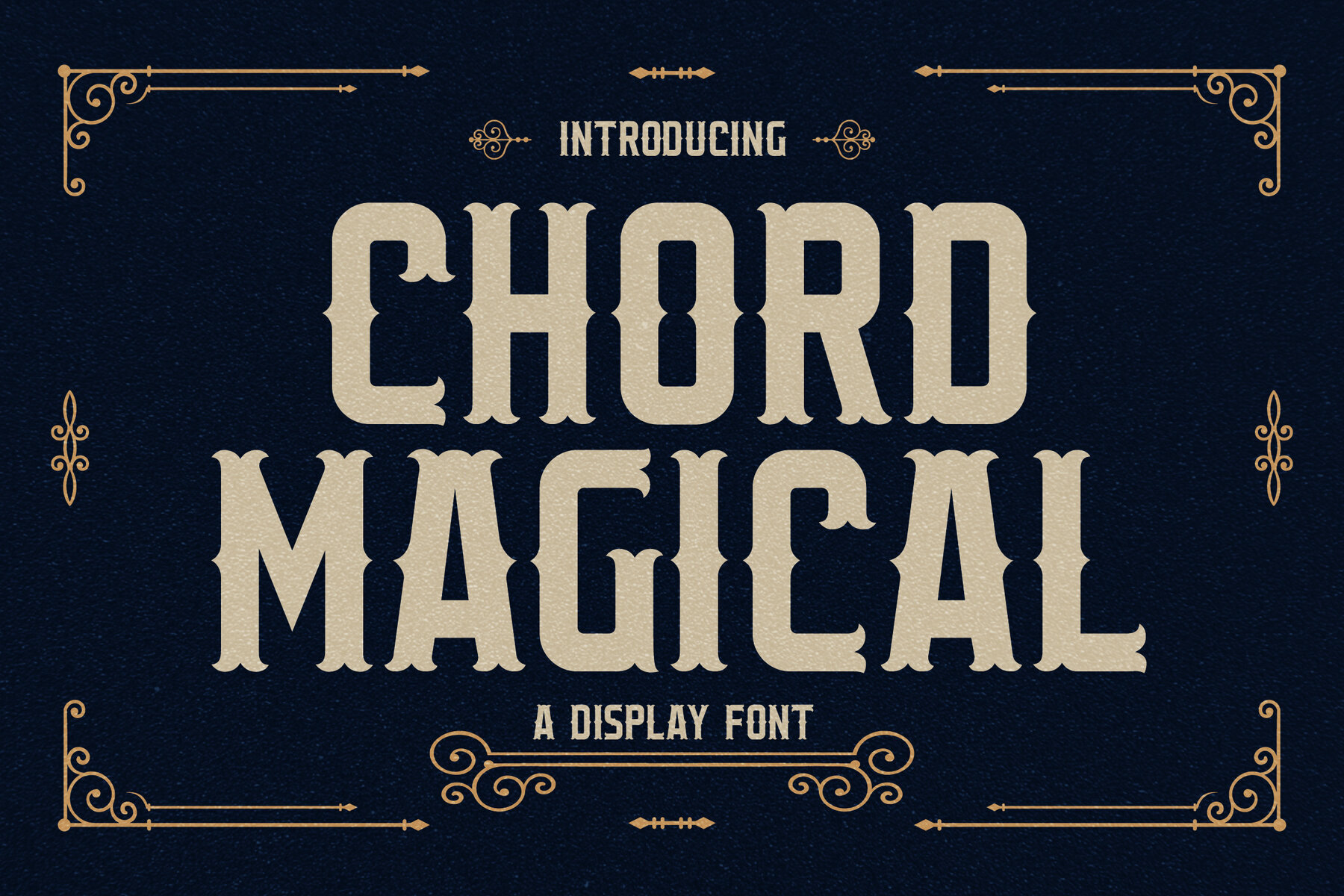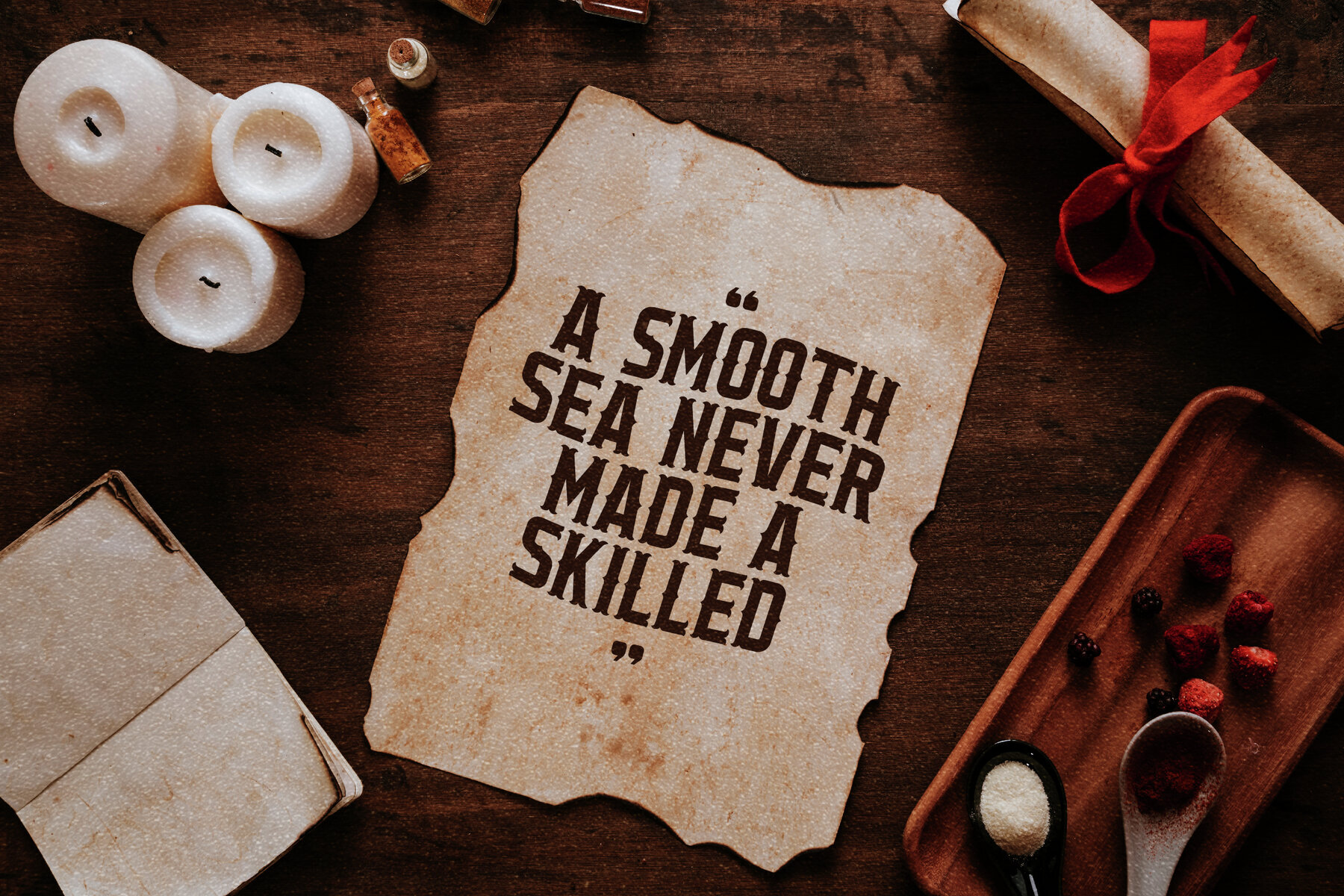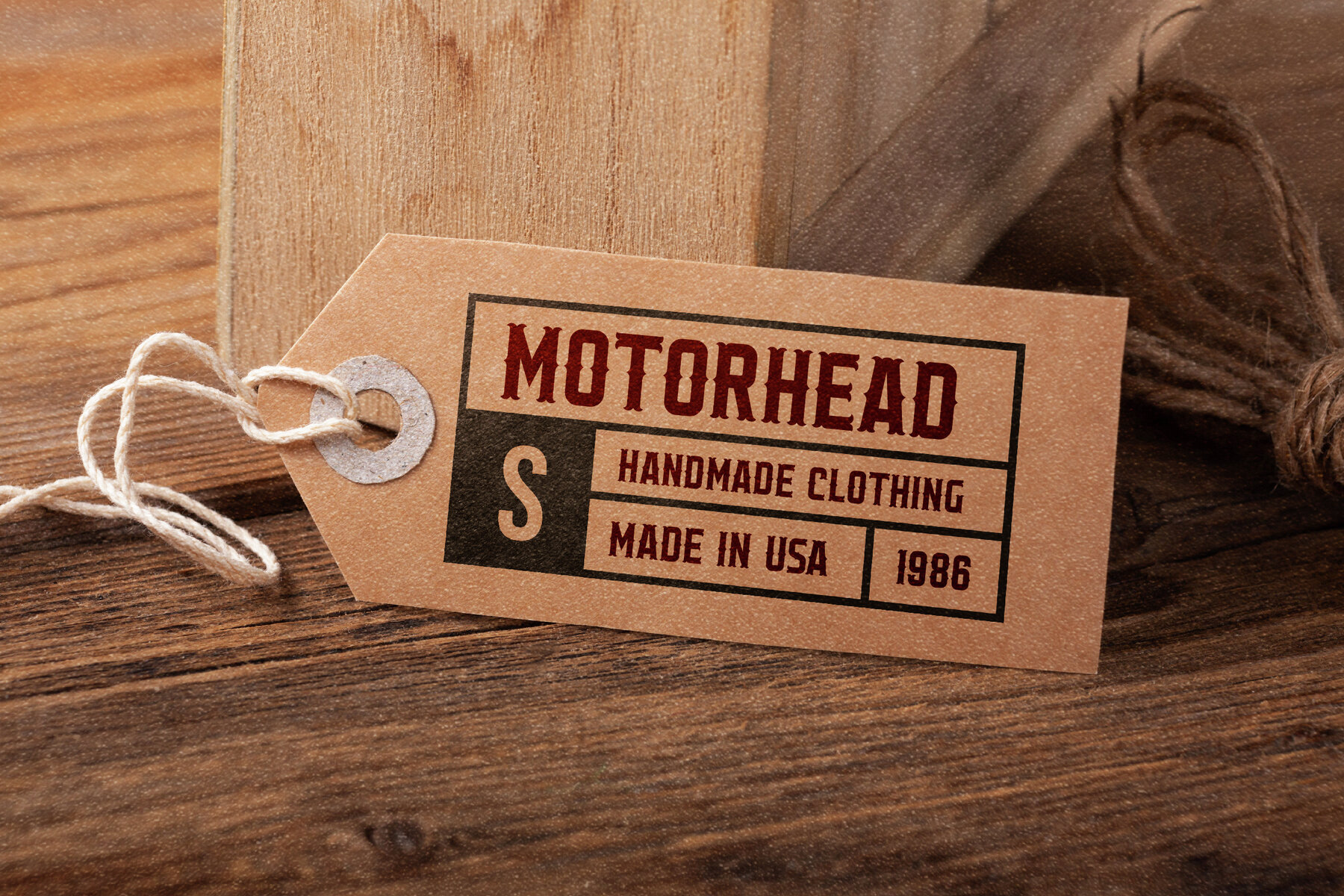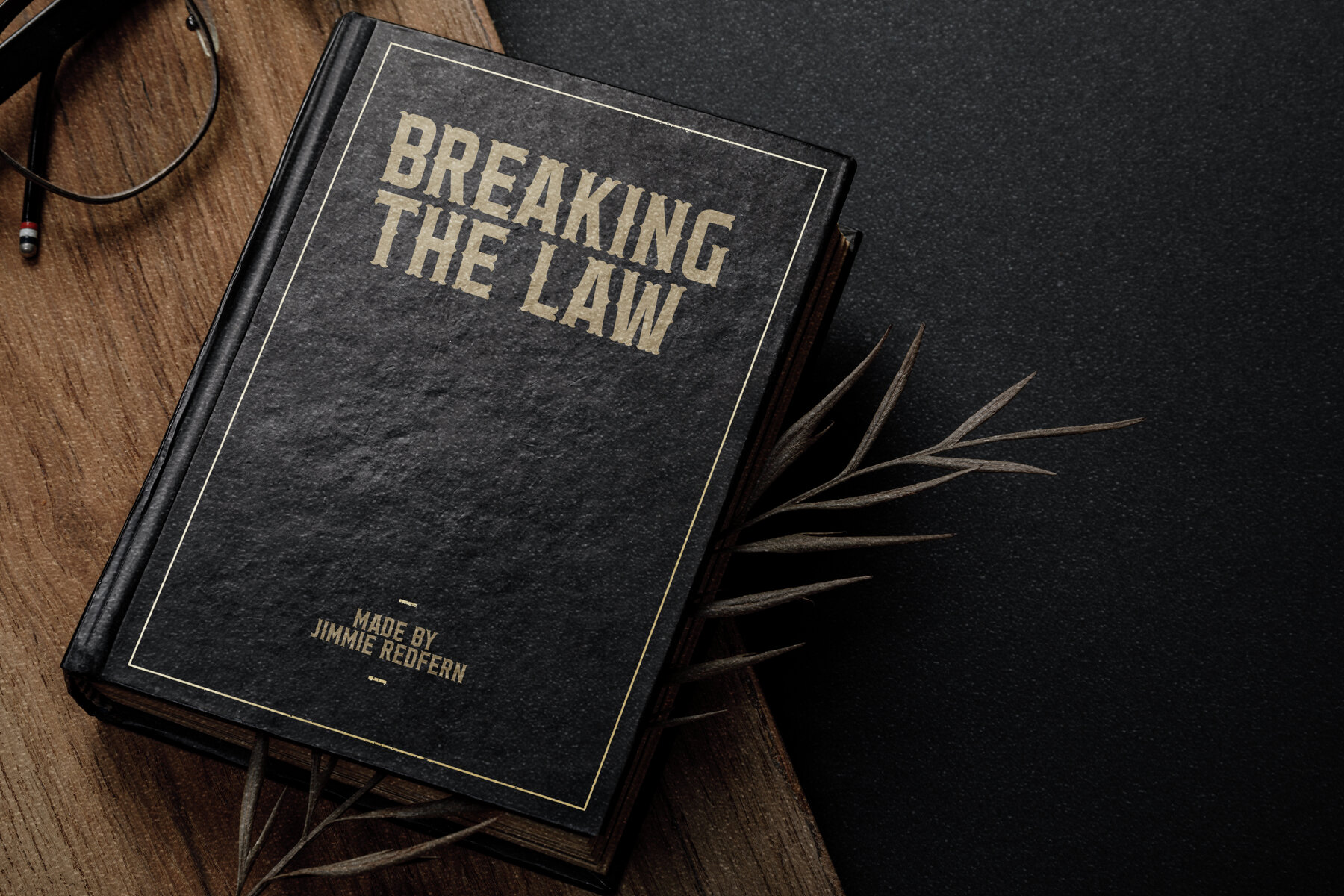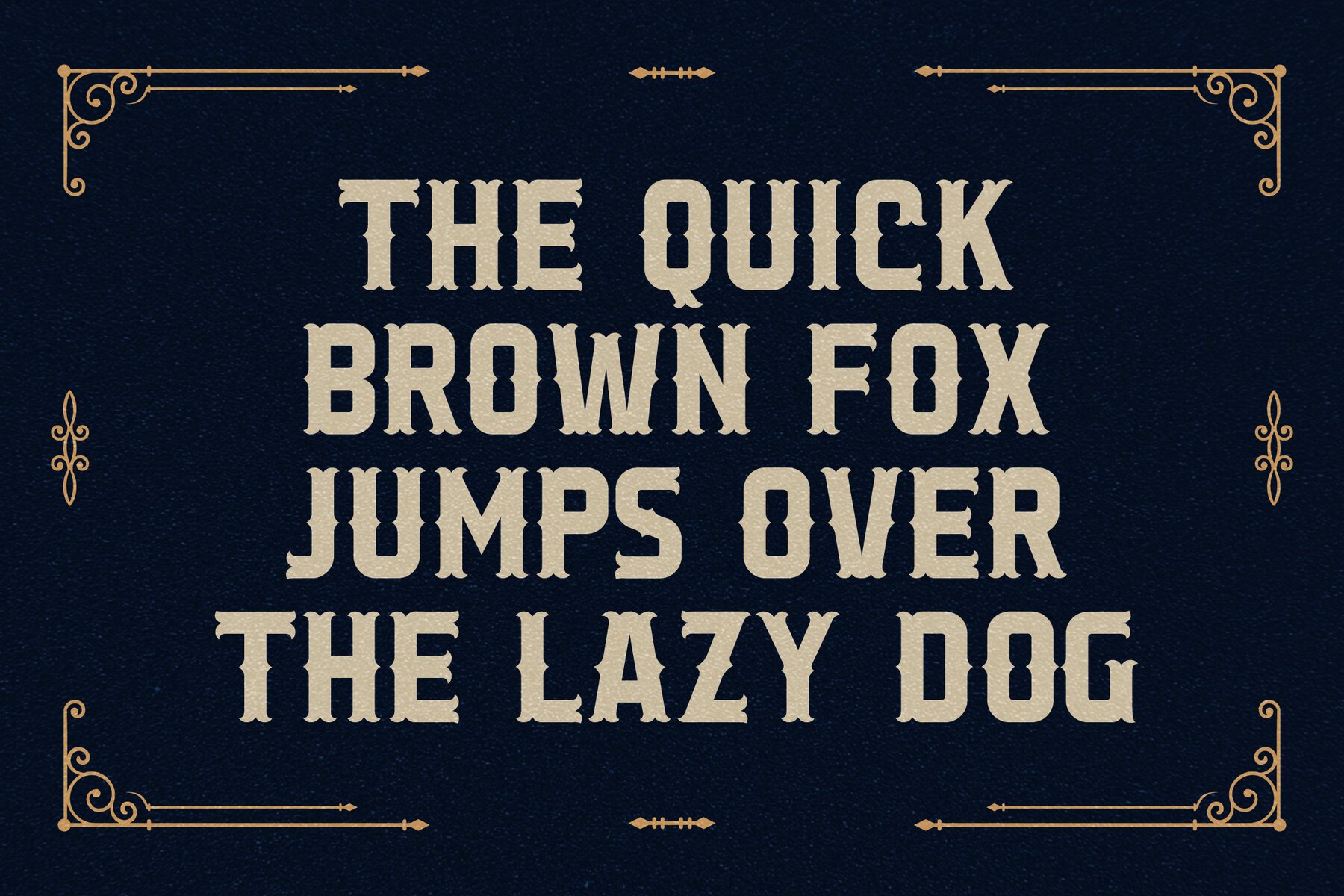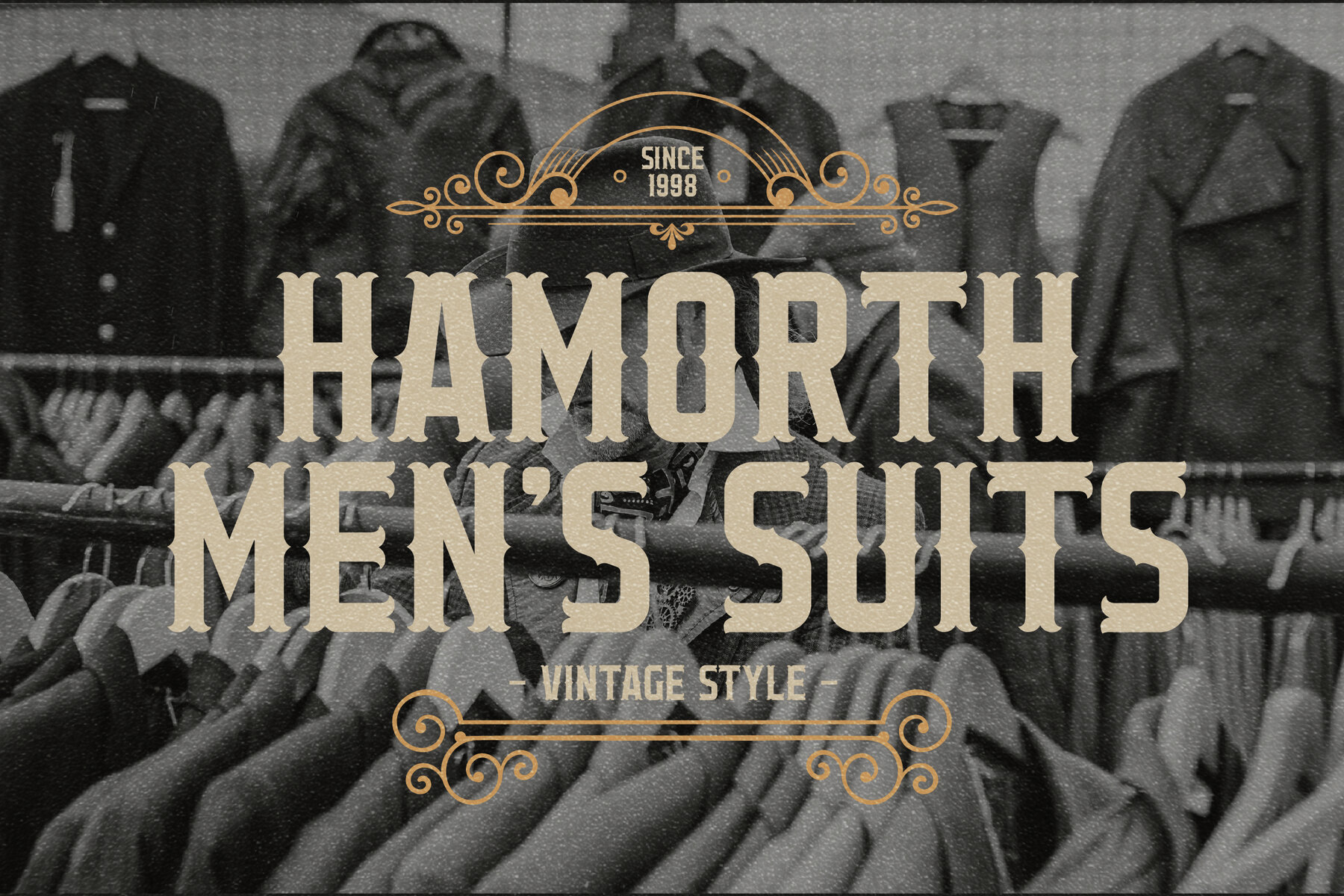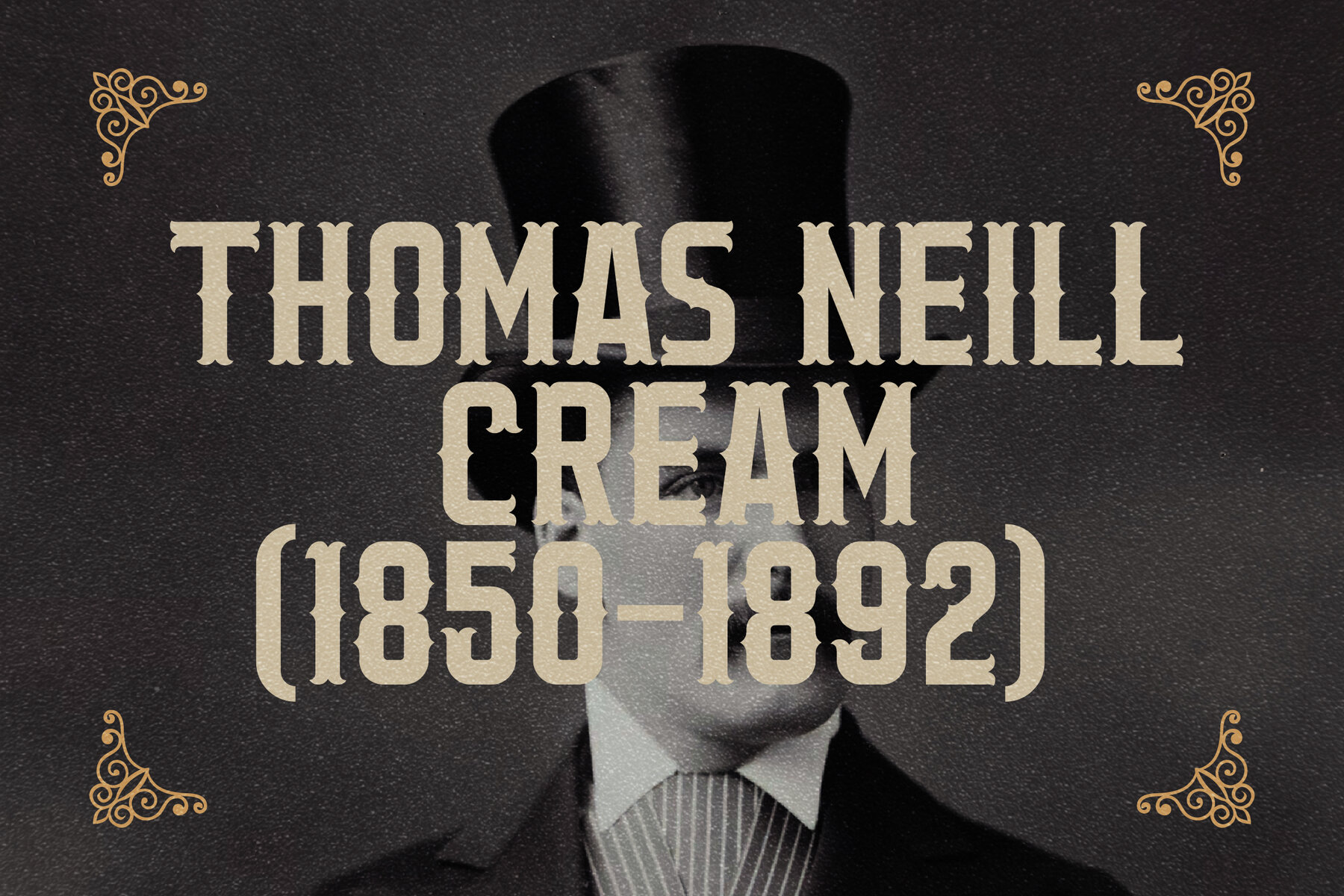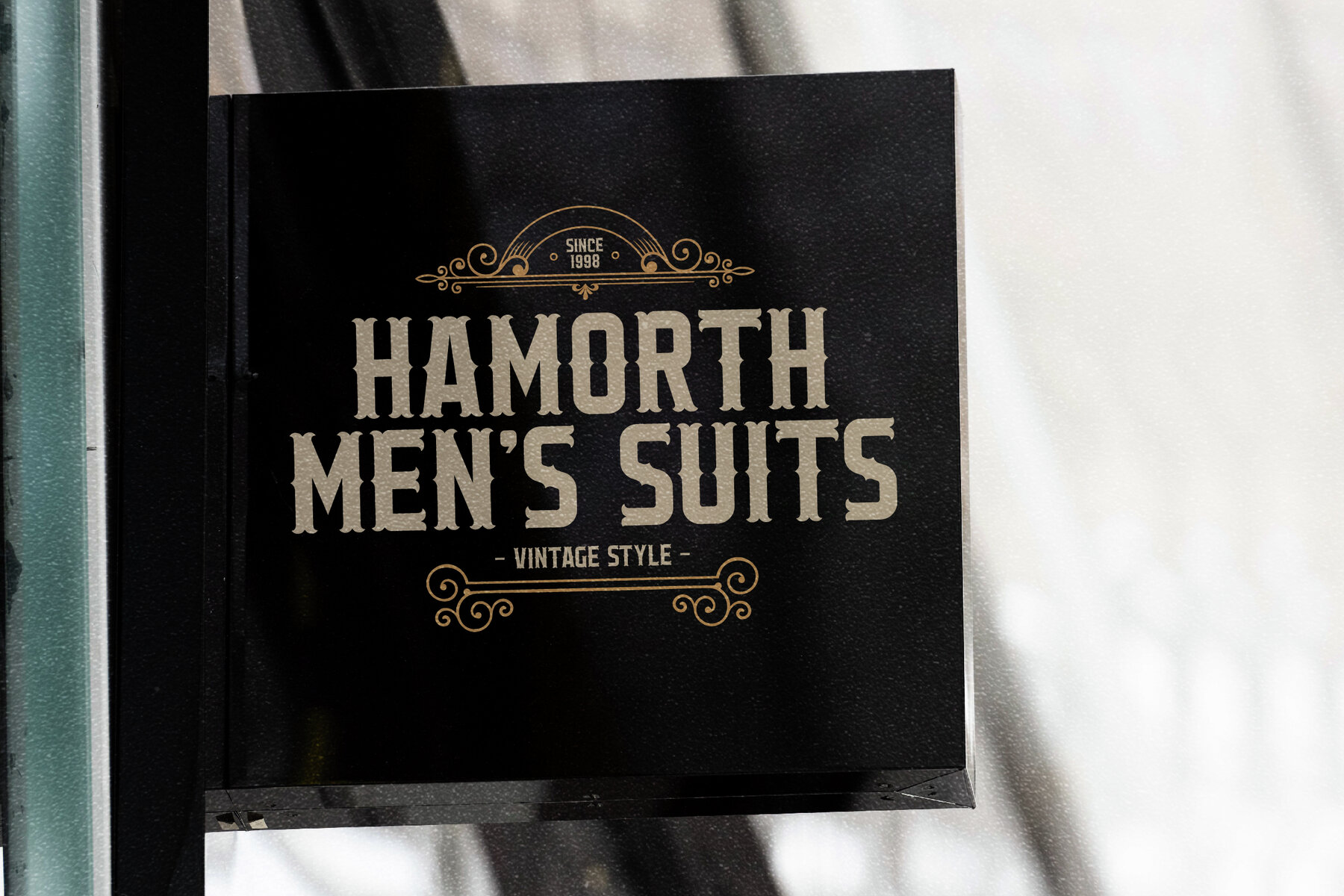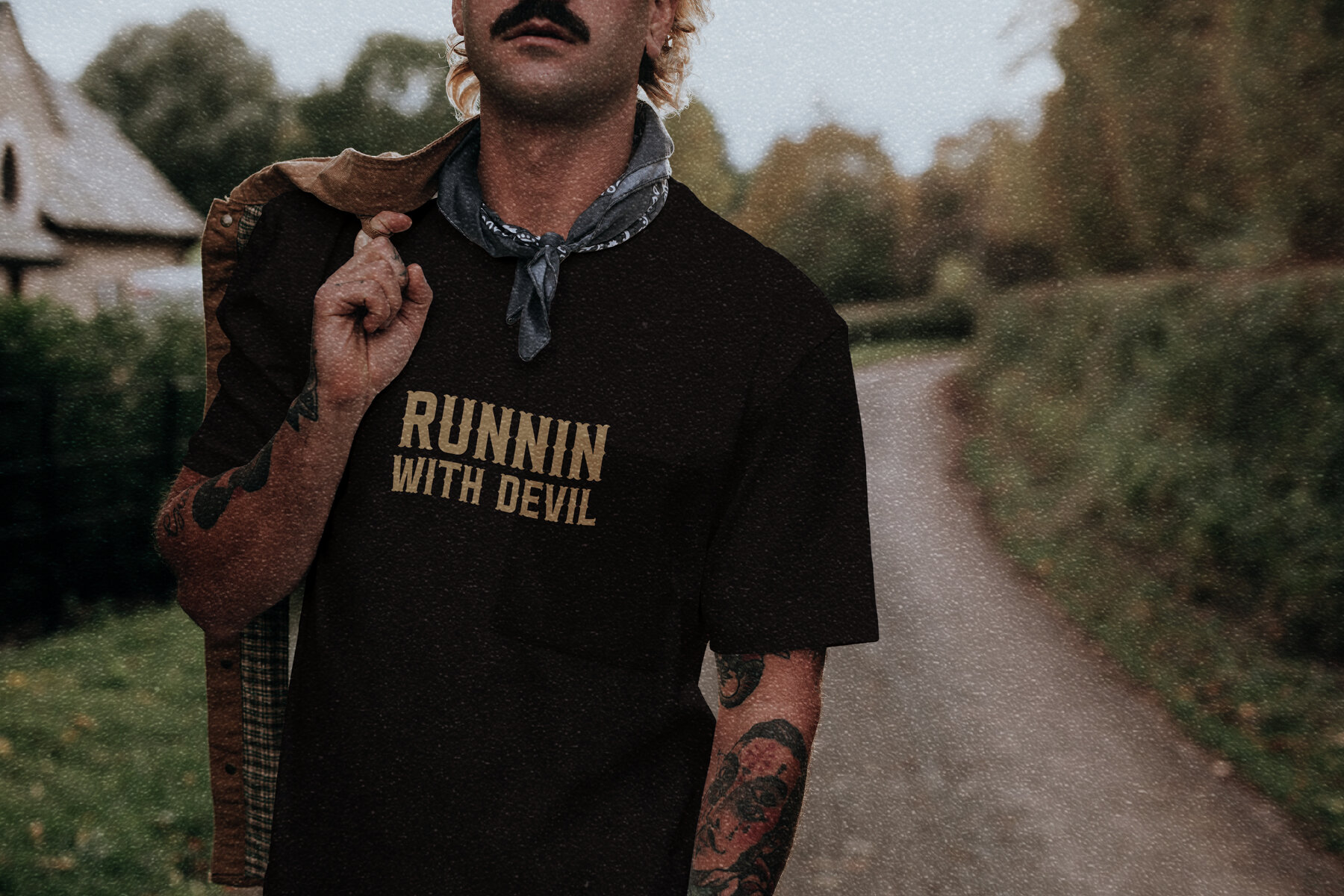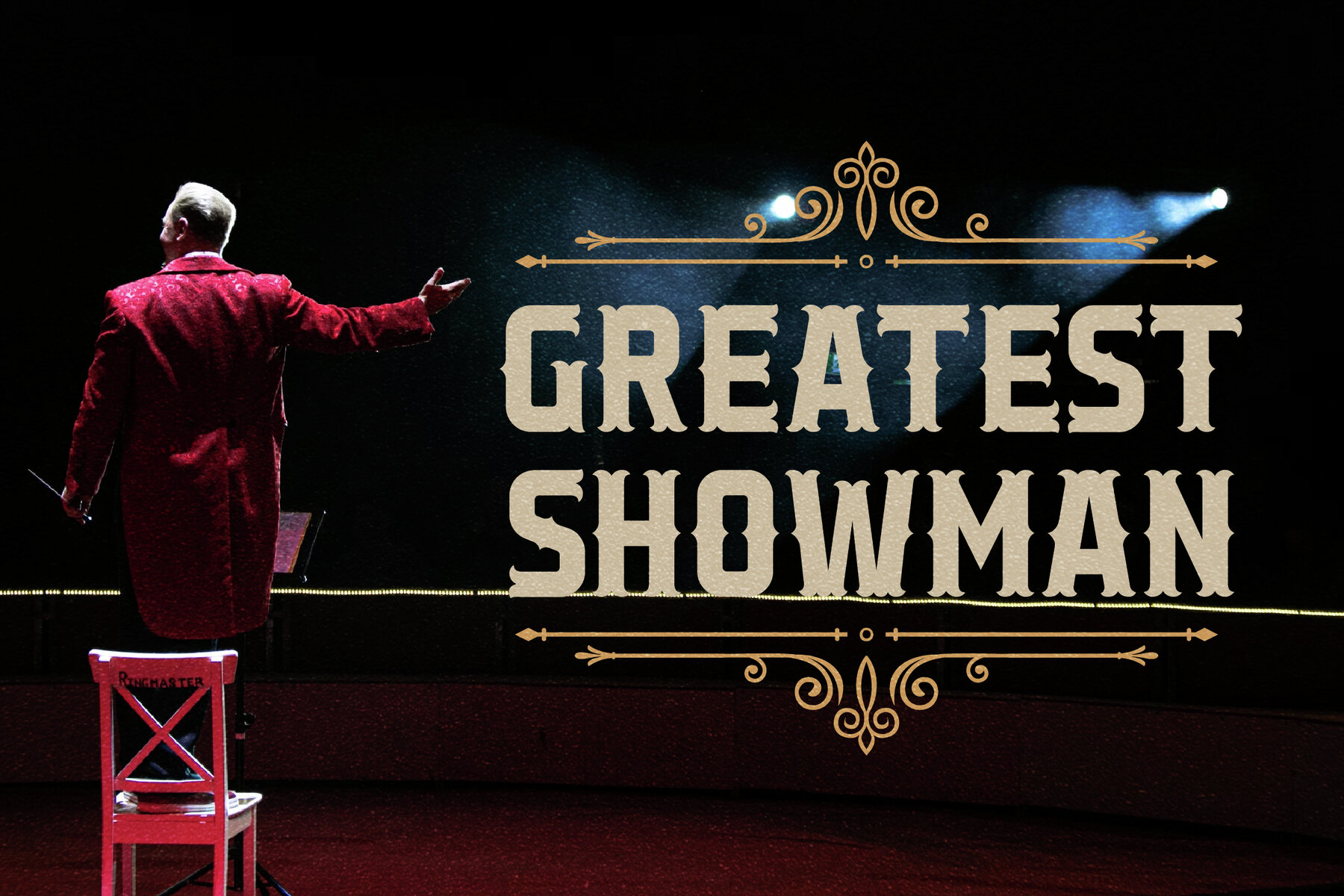
CHORD MAGICAL Font
Introducing CHORD MAGICAL, a modern serif typeface that blends classic elegance with a contemporary flair. This unique font by Storytype Studio is perfect for creating timeless and luxurious designs. Whether you're crafting a sophisticated logo, a striking book title, or adding a touch of class to fashion branding, CHORD MAGICAL offers endless possibilities to elevate your work. With CHORD MAGICAL, enjoy a typeface that seamlessly enhances your creative projects, making it a must-have for any design professional seeking both sophistication and versatility.CHORD MAGICAL Typeface